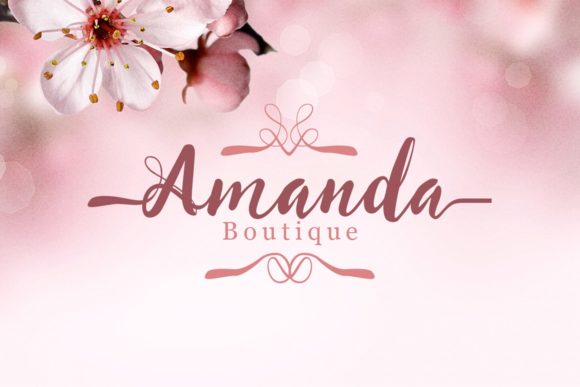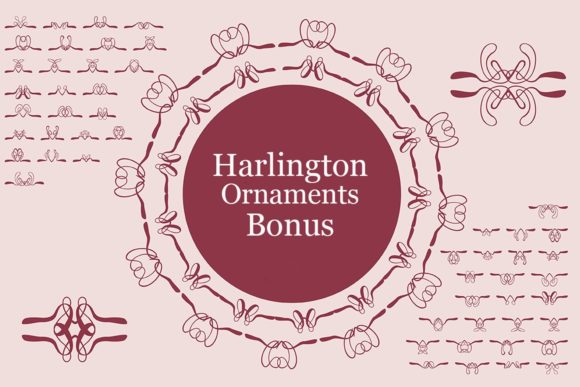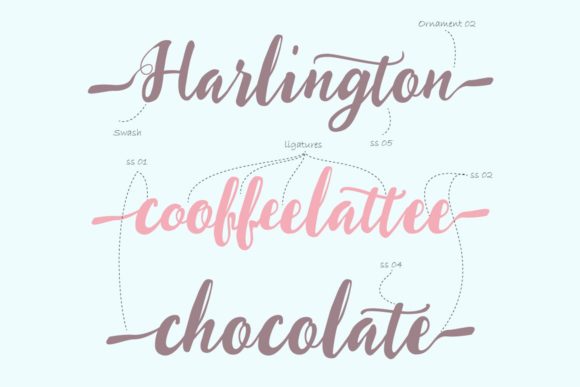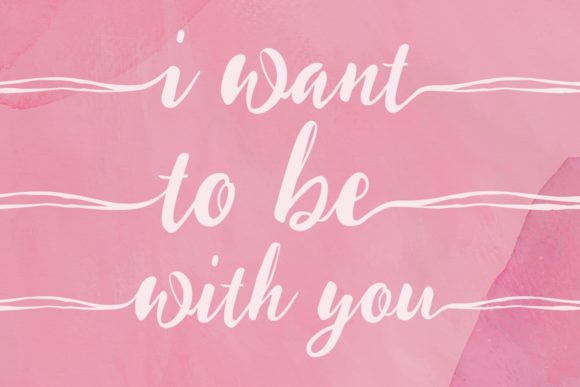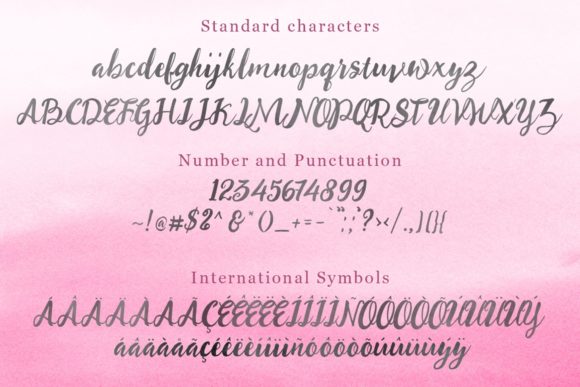
Introducing Harlington Font: Elevate Your Designs with Elegance and Sophistication
In the world of typography, a font can make or break a design. It’s the foundation upon which creativity is built, and the right choice can elevate a project from ordinary to extraordinary. For designers and crafters seeking a typeface that embodies elegance, delicacy, and a touch of sophistication, Harlington Font is an exceptional choice. This beautiful, handwritten font is designed to bring a sense of refinement and poise to any project, making it a versatile addition to your typographic arsenal.
The Essence of Harlington Font
Harlington Font is characterized by its delicate, elegant, and flowing script. Each character is meticulously crafted to ensure a harmonious balance, allowing the font to seamlessly integrate with a wide range of design aesthetics. Whether you’re working on a branding project, packaging, or digital content, Harlington Font adds a touch of class and sophistication that can make your designs stand out.
A sample of Harlington Font in use, showcasing its elegant and flowing script.
Key Features of Harlington Font
- Beautiful and Well-Balanced Characters: Each letterform in Harlington Font is designed with beauty and balance in mind, ensuring that your text reads smoothly and looks great.
- PUA Encoded for Easy Access: Harlington Font is PUA (Private Use Area) encoded, which means you can easily access all the glyphs and swashes. This feature is particularly useful for designers who want to add a personal touch to their work without the hassle of complicated font management.
- Varying Baseline and Smooth Lines: The font features a varying baseline that adds to its organic and handwritten feel. Coupled with smooth lines, Harlington Font achieves a fluidity that is rare in digital typography.
- Gorgeous Glyphs and Stunning Alternates: To further enhance its versatility, Harlington Font comes with a range of gorgeous glyphs and stunning alternates. These allow you to customize your text, adding unique touches that can make your designs more engaging and distinctive.
Applications of Harlington Font
The versatility of Harlington Font makes it suitable for a variety of design projects. Here are some of the areas where it can make a significant impact:
- Branding and Logotypes: The elegant and sophisticated nature of Harlington Font makes it an excellent choice for branding and logotypes. It can help create a memorable and luxurious brand image.
- Wedding and Event Stationery: For designers who specialize in wedding and event stationery, Harlington Font can add a touch of romance and elegance to invitations, menus, and other materials.
- Packaging Design: Product packaging can benefit from Harlington Font’s unique and eye-catching style, helping products stand out on store shelves.
- Digital Content: In the digital realm, Harlington Font can enhance website headers, social media graphics, and digital advertising, providing a professional and refined look.
Tips for Using Harlington Font
To get the most out of Harlington Font, consider the following tips:
- Pair with Complementary Fonts: While Harlington Font is beautiful on its own, it can also be paired with other fonts to create contrast and hierarchy in your designs.
- Experiment with Swashes and Glyphs: Take advantage of the font’s PUA encoding by experimenting with different swashes and glyphs. This can add a unique touch to your text.
- Adjust Line Spacing and Kerning: To enhance readability, pay attention to line spacing and kerning. Adjusting these can make your text more comfortable to read.
| Author | Unicode Studio |
Harlington Font is a remarkable addition to any designer’s toolkit. Its elegant and flowing script, combined with its versatility and ease of use, makes it an ideal choice for a wide range of projects. Whether you’re a professional designer or a crafter looking to add a touch of sophistication to your work, Harlington Font is sure to impress. With its beautiful and well-balanced characters, PUA encoding, and range of glyphs and alternates, it’s a font that can help bring your most creative ideas to life.